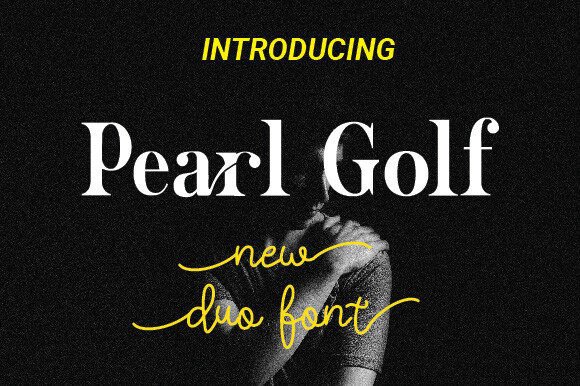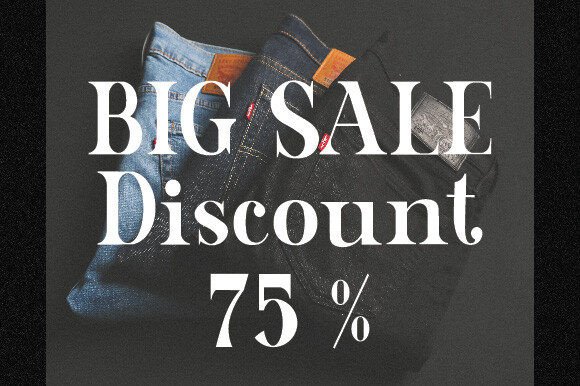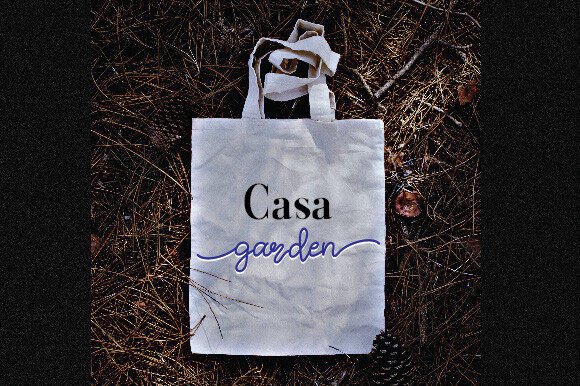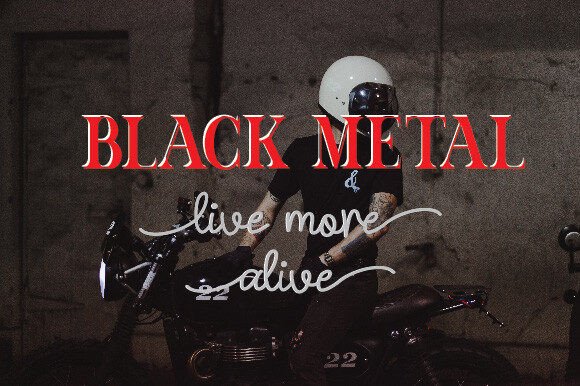
Pearl Golf Font
About the Pearl Golf Font
Let us introduce you to Pearl Golf Font, where timeless design meets modern craftsmanship. Pearl Golf is a combination of two types of fonts, namely serif and script. You can choose one of them or use them together so that the font looks elegant. Complete it with ligatures, alternatives and swsh to give a more complete impression. This font is suitable for screen printing, forsters, invitations or anything else according to your needs with OTF and TTF files in it.
Pearl Golf’s elegant blend of serif and script lends itself well to projects requiring a touch of sophistication. Ideal applications include wedding invitations, luxury branding, or high-end product packaging where the refined details shine. It’s less suitable for body text or UI elements due to its decorative nature; readability suffers in smaller sizes or extended blocks of text.
The font exudes a classic, elegant personality, making it a strong choice for brands emphasizing timeless quality and sophistication.
Pearl Golf Font Usage Examples
Pearl Golf Font Example